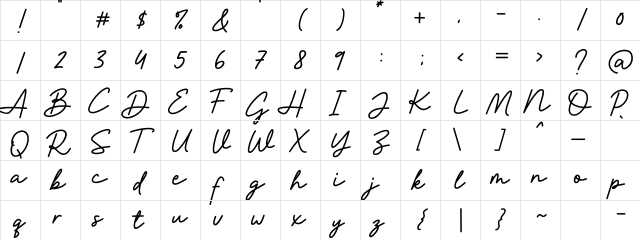
Complete Brittney Signature DEMO! DEMO! Regular glyph index. Displaying only characters natively supported by Brittney Signature DEMO! DEMO! Regular font.
Brittney Signature DEMO! DEMO! is a composed and adaptable typeface that performs quietly and consistently across a wide range of design contexts.